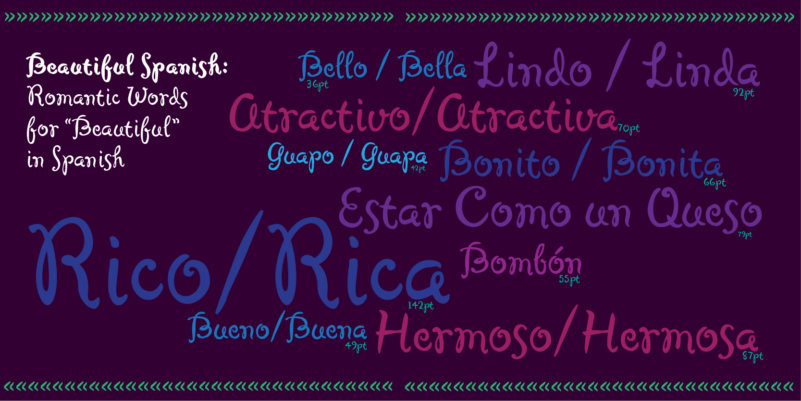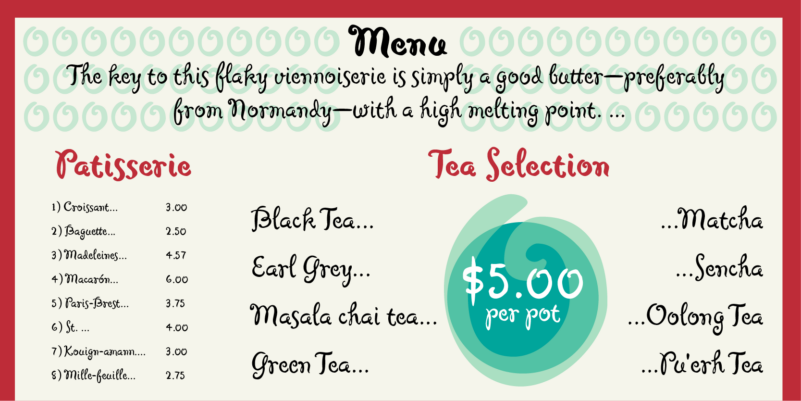
MVB Cafe Mimi Font
MVB Cafe Mimi FontKanna Aoki was designing fabrics and tableware for several major manufacturers when she designed the MVB Cafe Mimi font. The design was created from a few words painted by Aoki decoratively on a set of cappuccino cups. Aoki created the Normal style fat for MVB Fonts using a brush. Bold style has been adapted after digitization. By using multiple double-letter ligatures, fonts can appear as natural and spontaneous as the original hand-painted lettering. Despite its flourishes and flowing forms, great care has been taken to create this balanced and readable script. He hops along the baseline but does not lose his step.